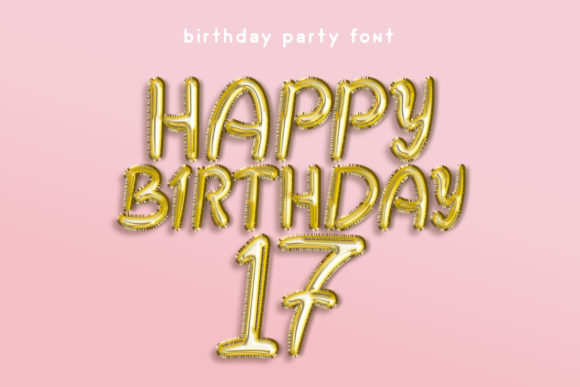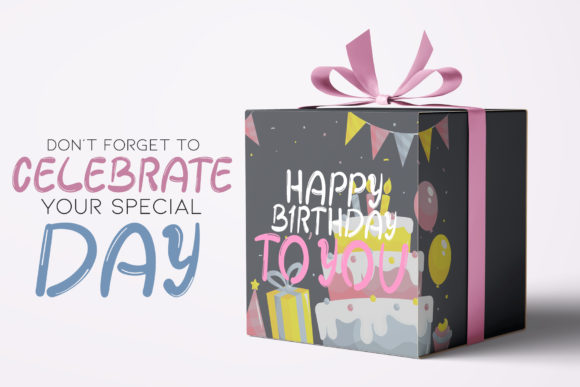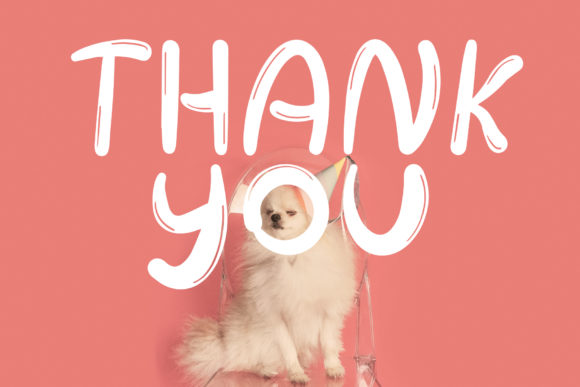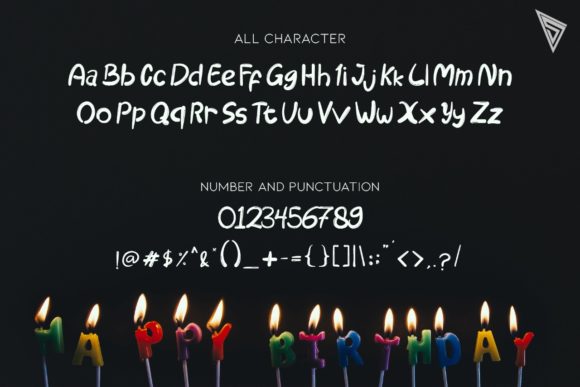
The Perfect Party Font: A Comprehensive Guide to Birthday Party Font
With its unique and simple handwritten style, Birthday Party font is perfect for informal designs like posters, birthday cards, banners, and more. In this article, I’ll share my experience with this lovely font, its features, and how to make the most of it in your designs.
An Honest Review of Birthday Party Font
- Unique and simple handwritten style that’s perfect for informal designs ✅
- Easily readable, even at small sizes 📚
- Works well for a variety of design projects, from posters to birthday cards 🎉
- Has a friendly and approachable feel that’s perfect for kid’s party designs 👧
- May not be suitable for formal or professional designs ⚠️
- Limited availability of stylistic alternates or glyphs 🤔
The Designer Inspiration Behind Birthday Party Font
The Birthday Party font was designed with the intention of creating a fun and playful font that’s perfect for kid’s party designs. The designer wanted to create a font that’s easy to read, yet has a unique and personal touch. The result is a font that’s perfect for creating designs that are both fun and memorable.
| Font Name | Birthday Party Font |
| Author | Senekaligrafi Font |
Q: What type of designs is Birthday Party font best suited for?
A: Birthday Party font is perfect for informal designs like posters, birthday cards, banners, and more.